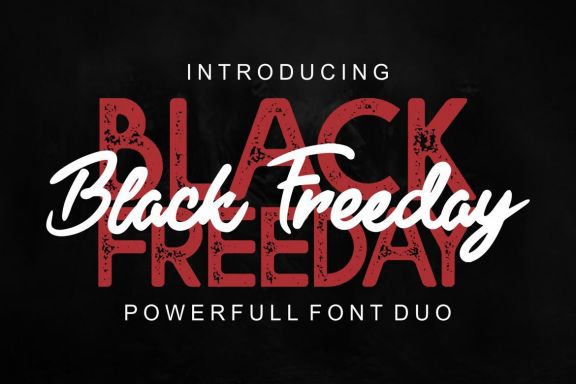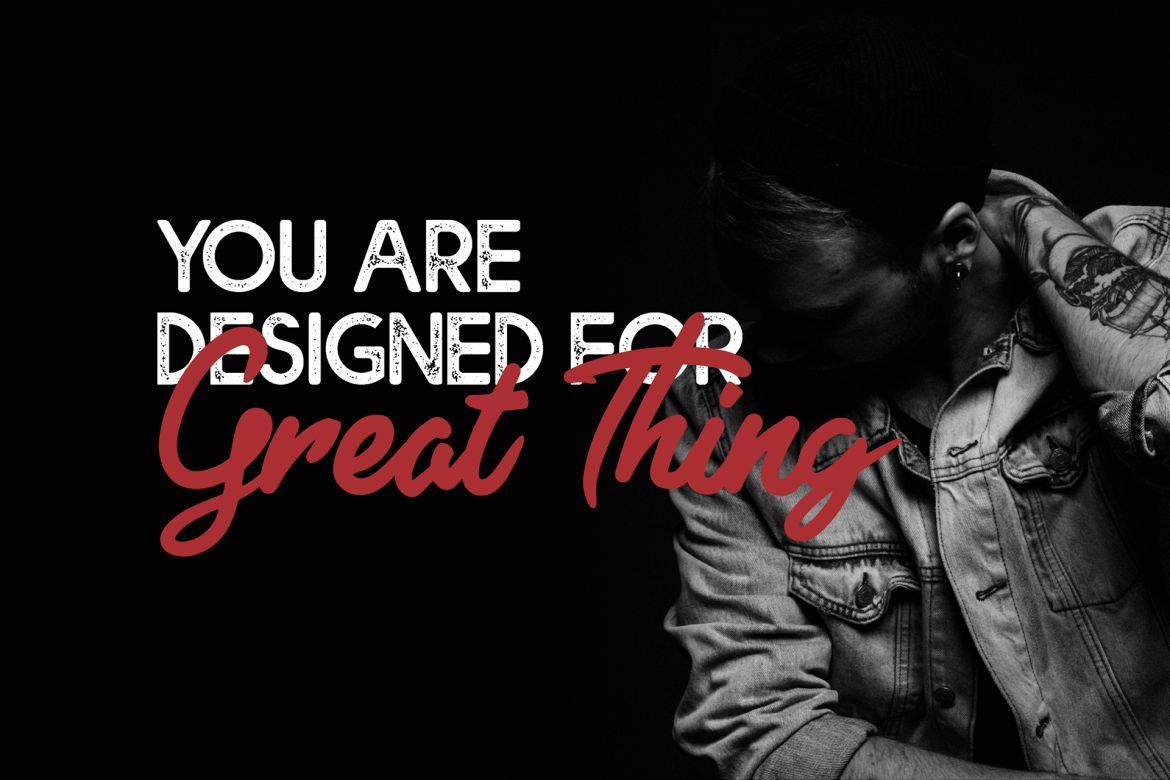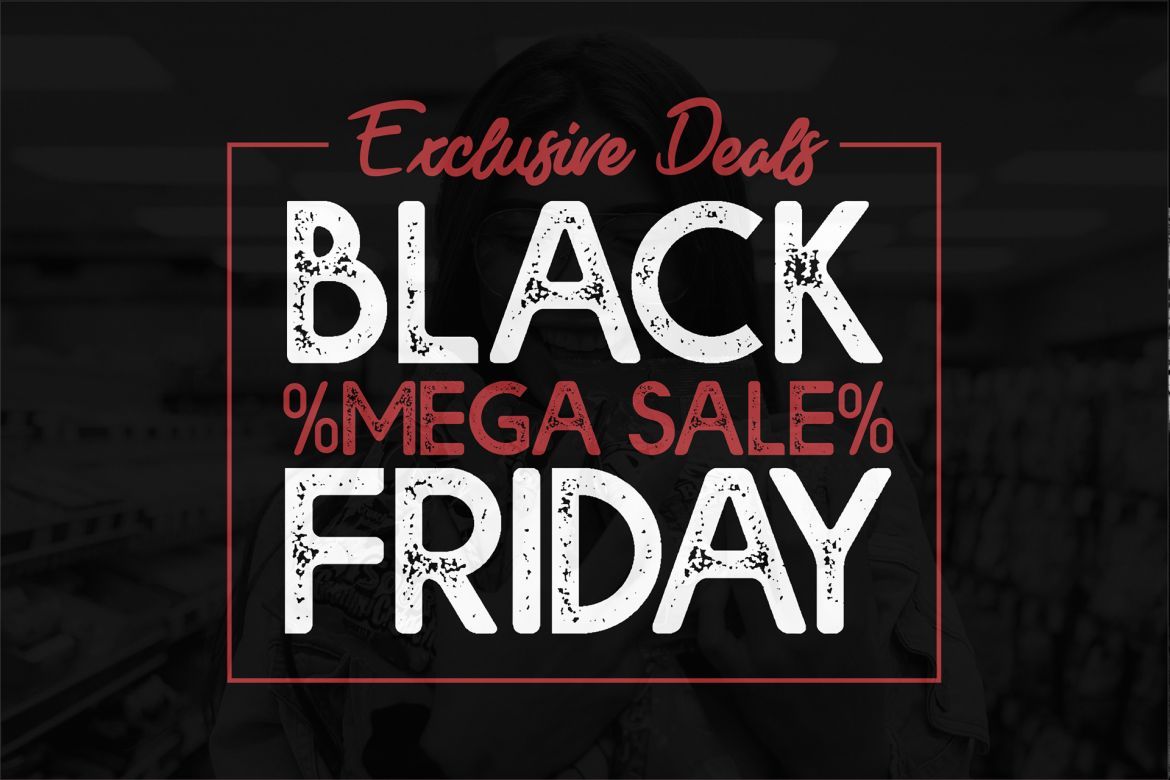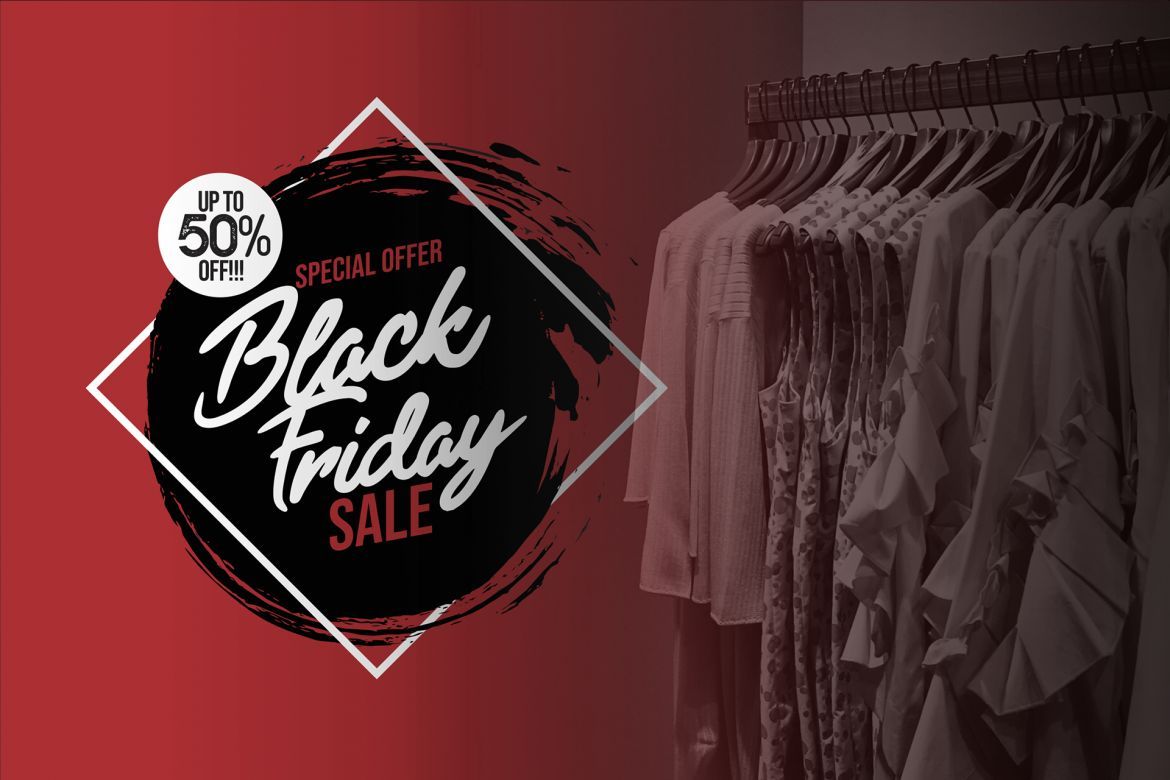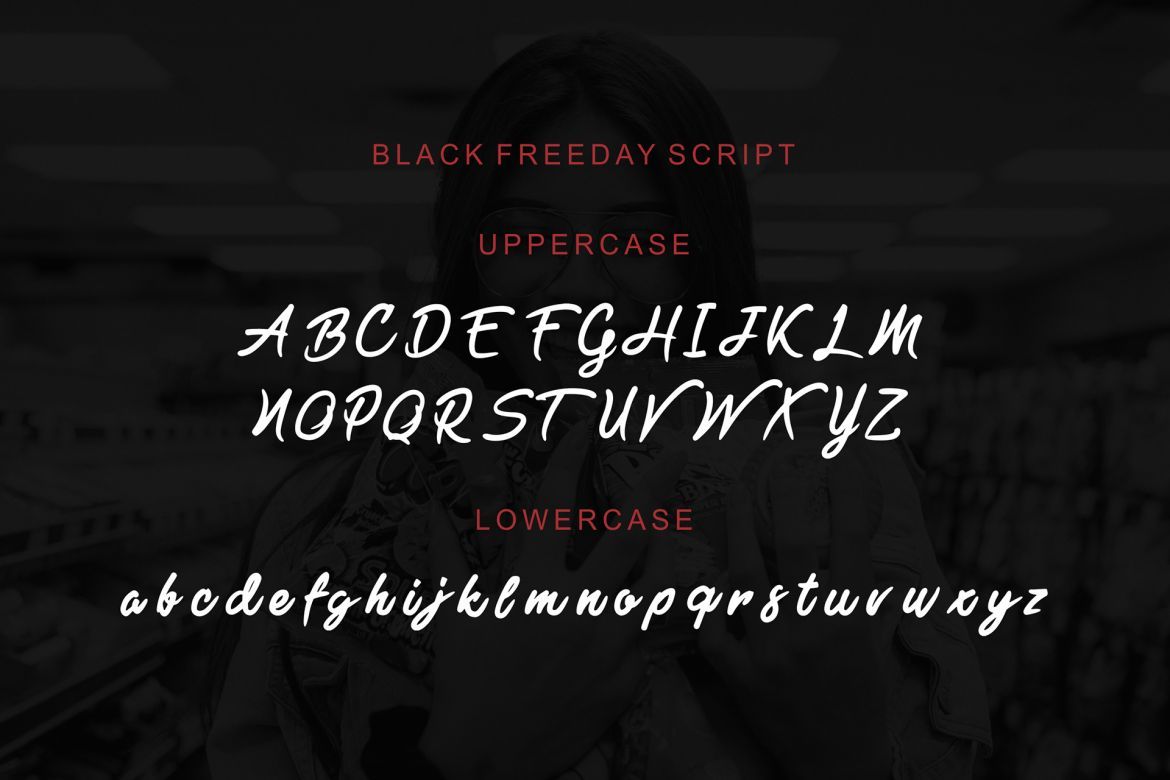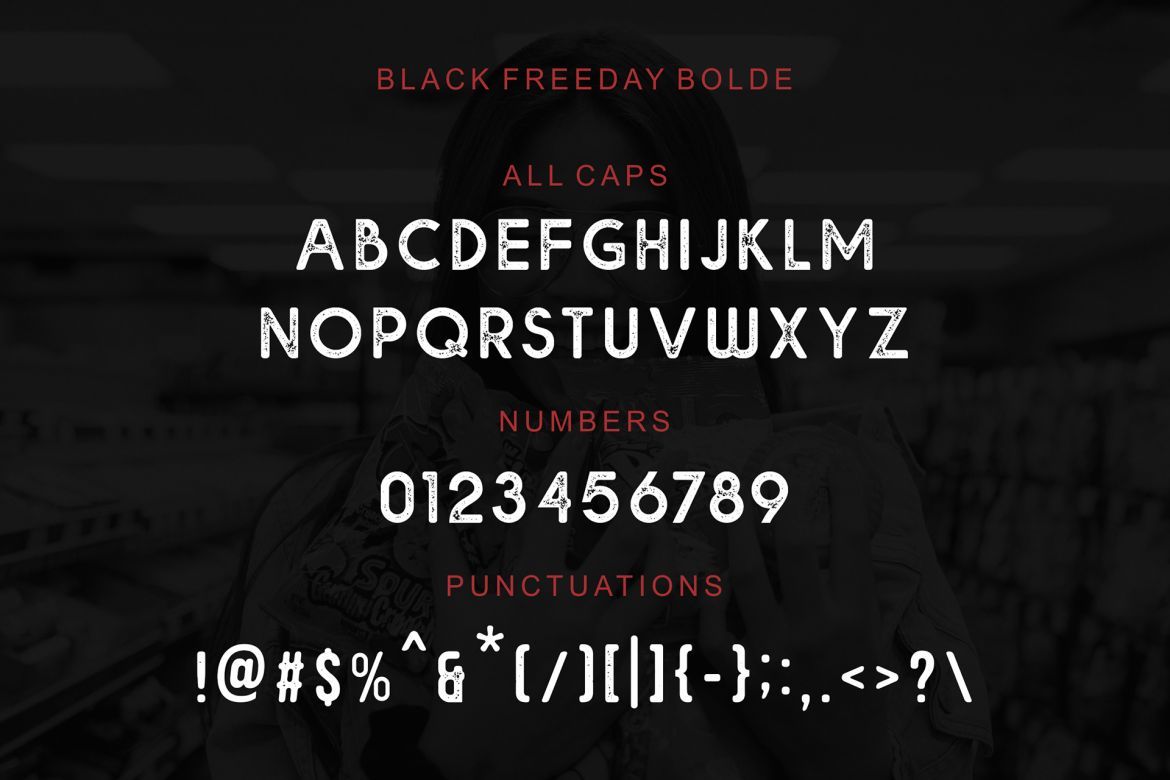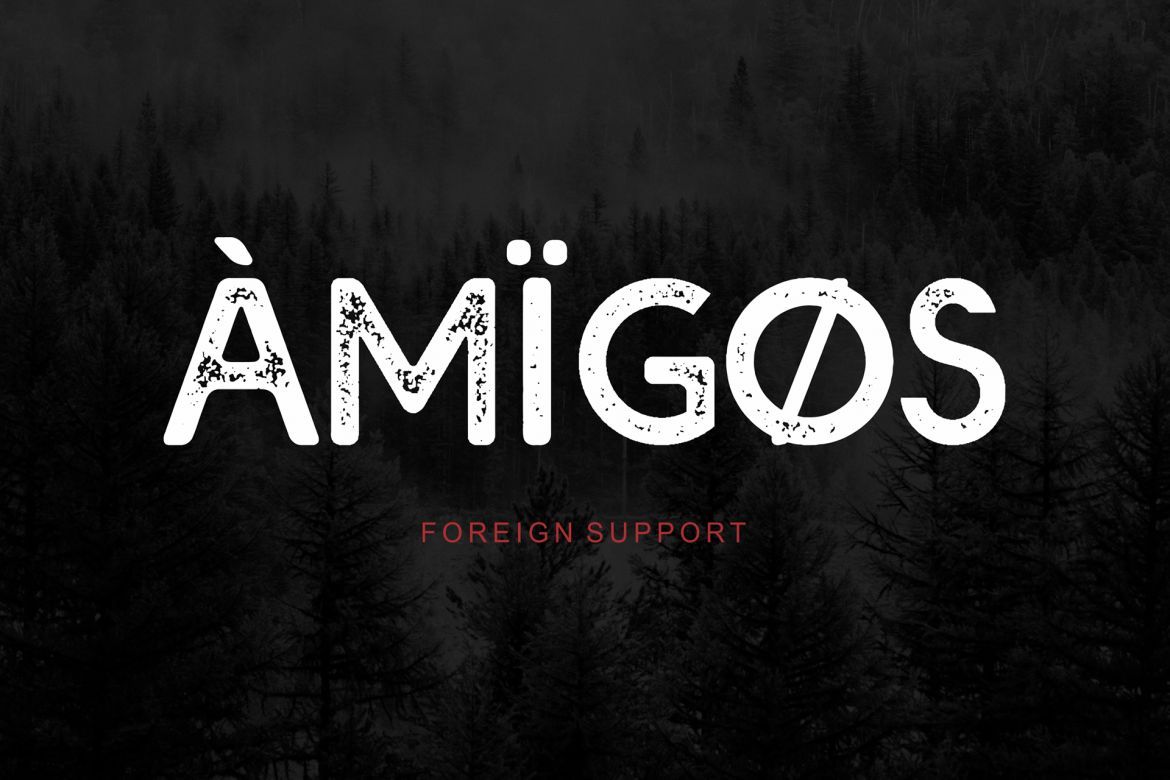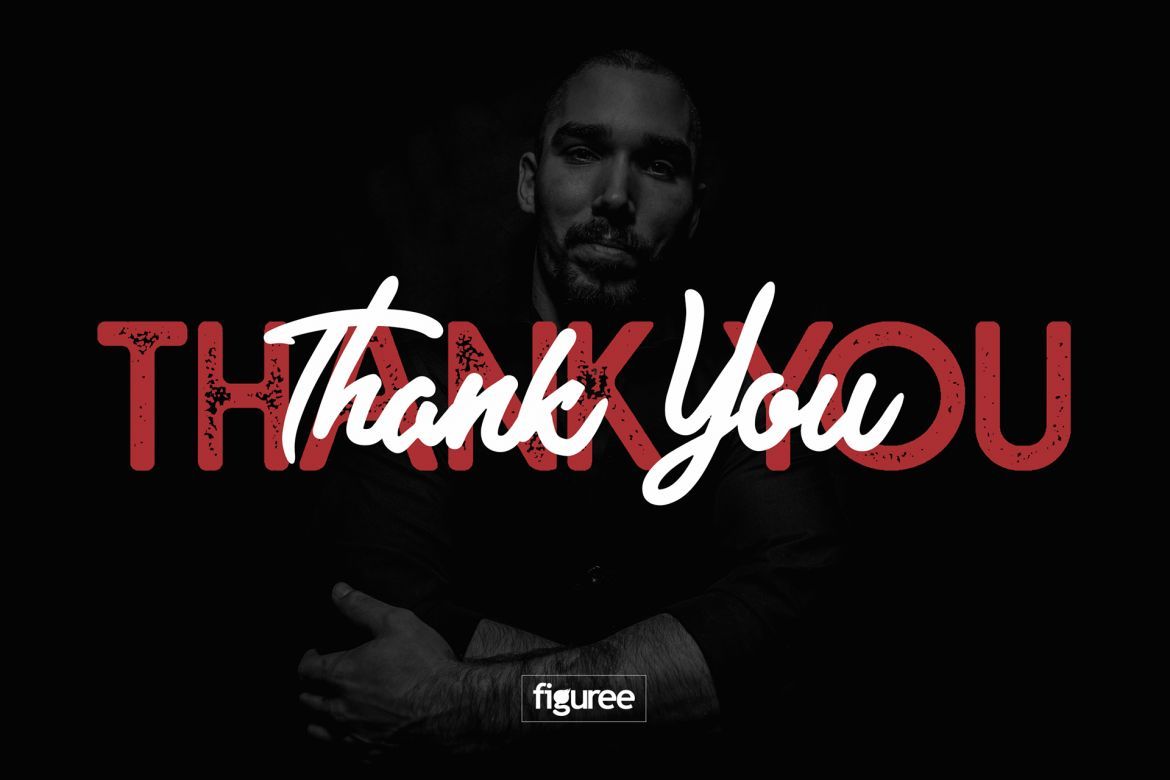
Black Freeday Font Duo
The Black Freeday is a powerfull font duo inspired by the excitement of black Friday moments. It included 2 styles that can make your design more unique.
Black Freeday includes 2 fonts :
• Black Freeday Script
• Black Freeday Bolde